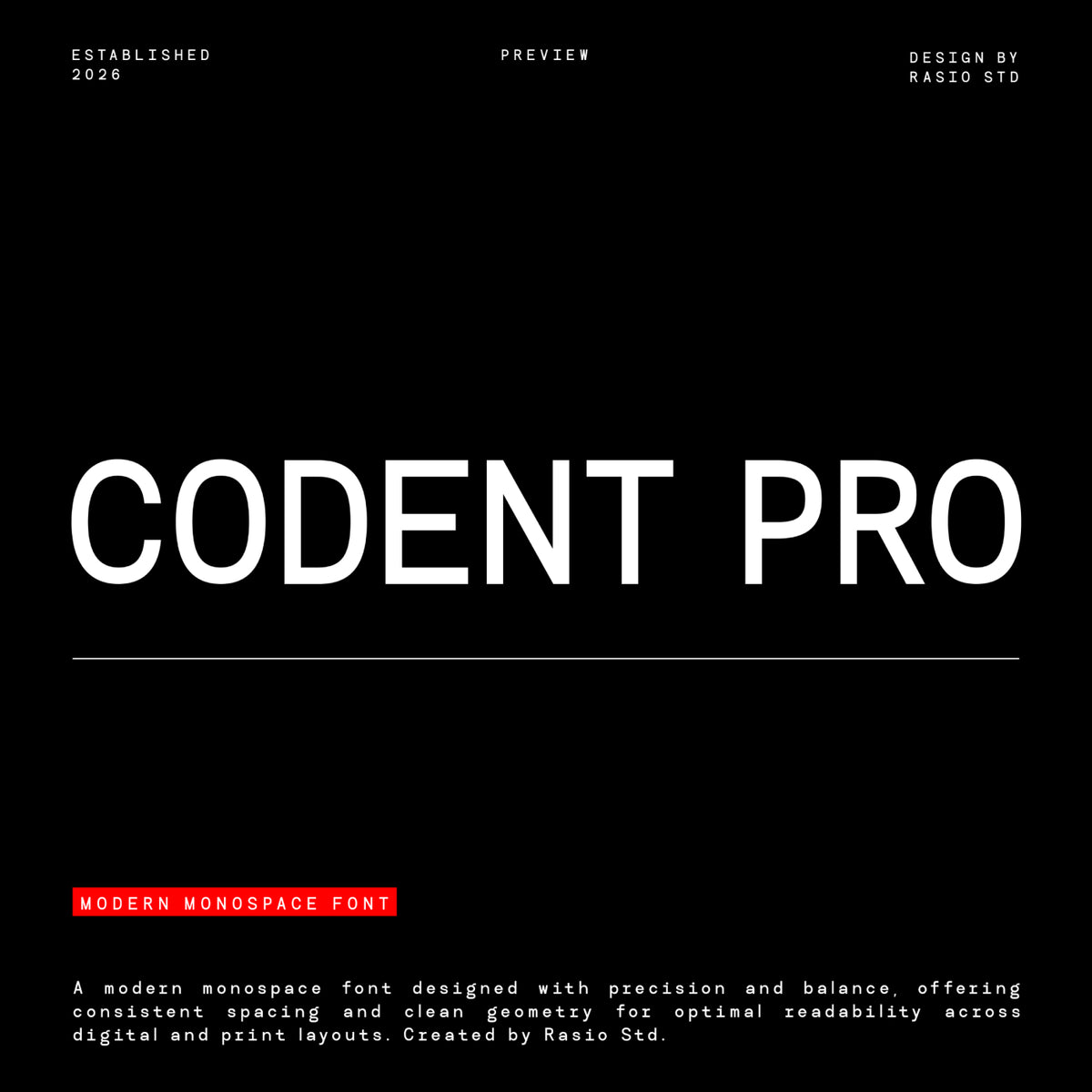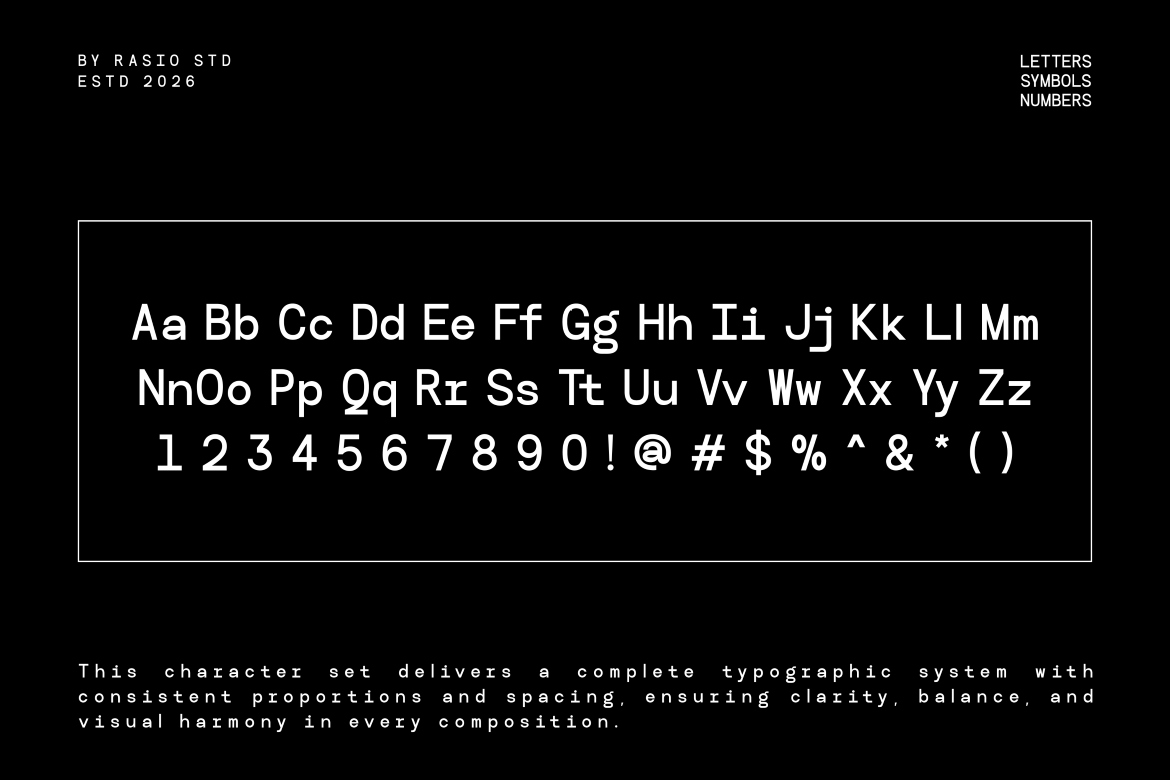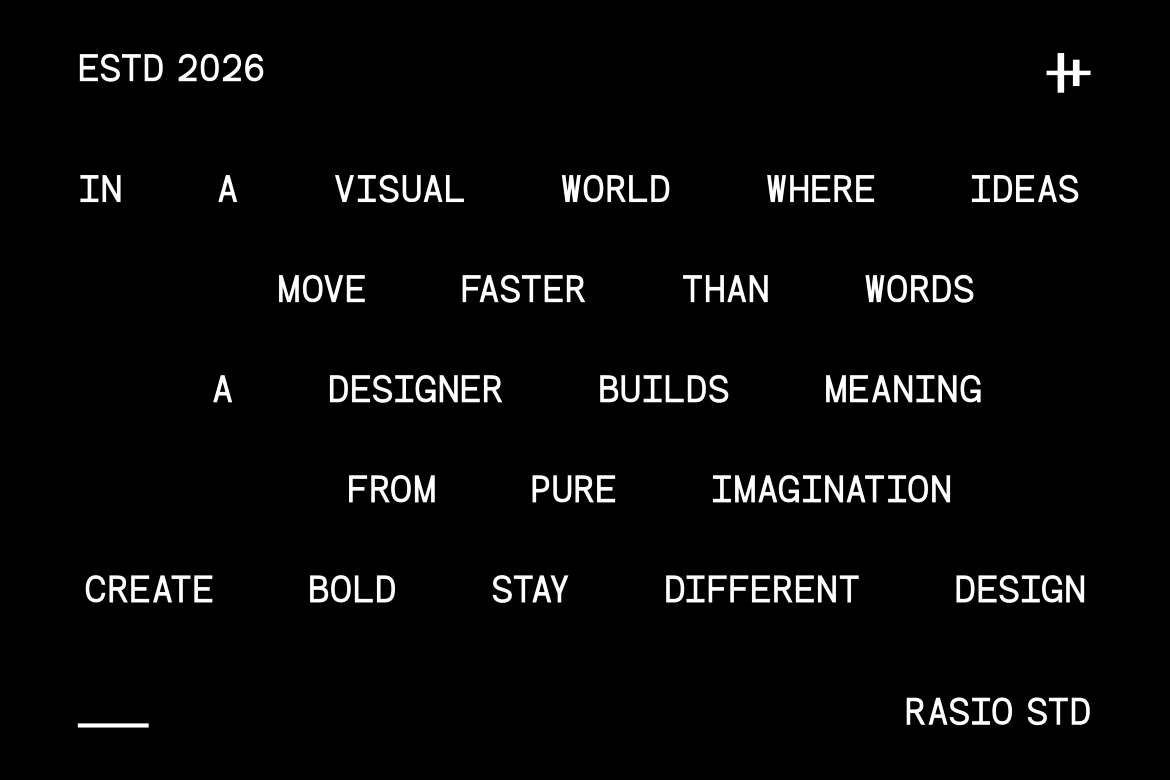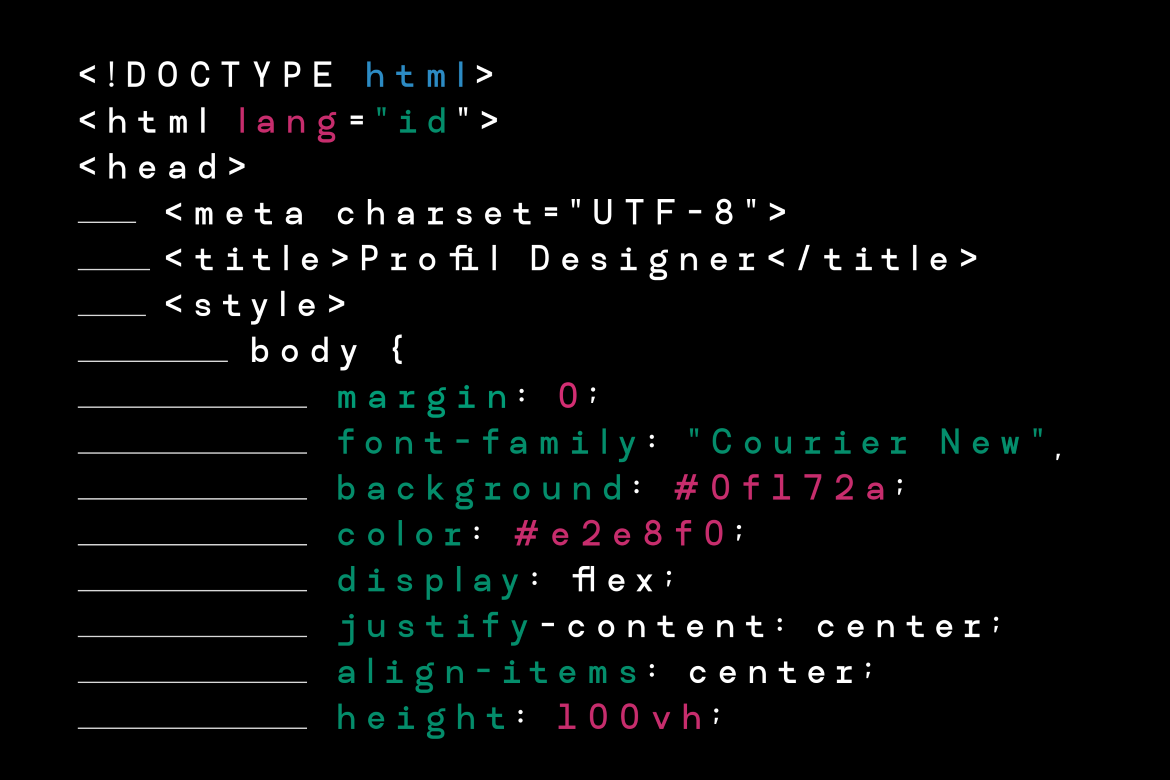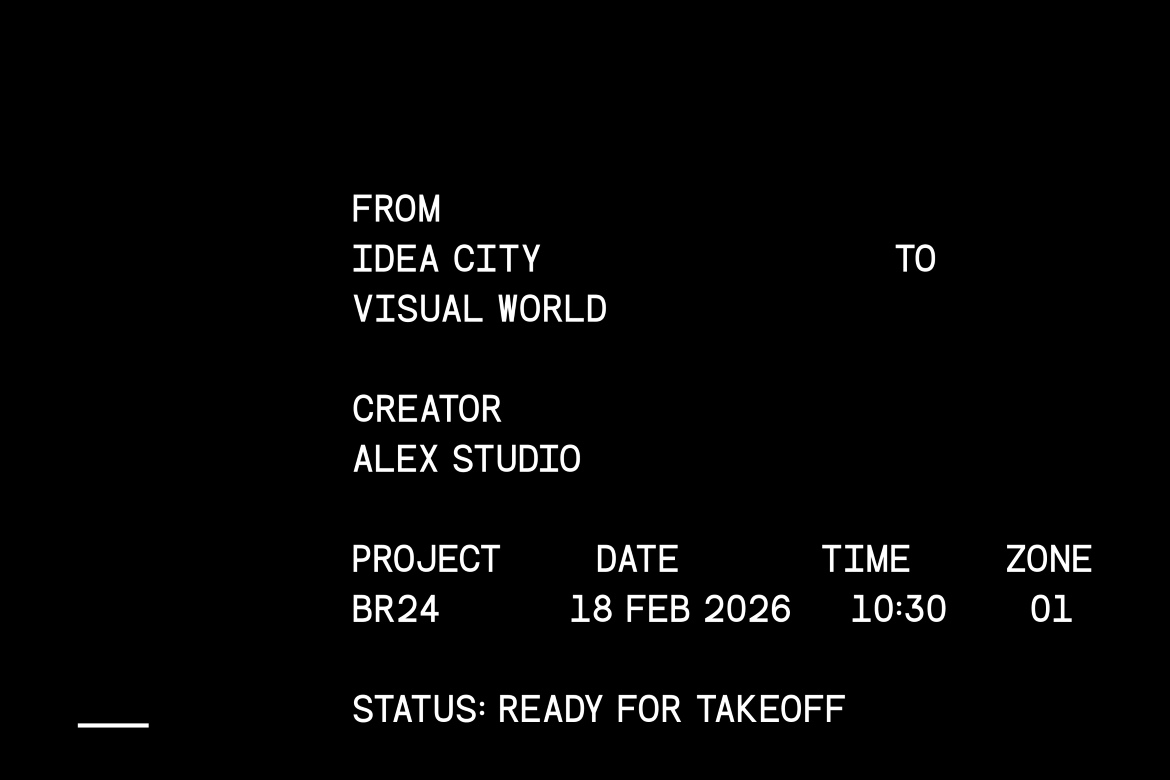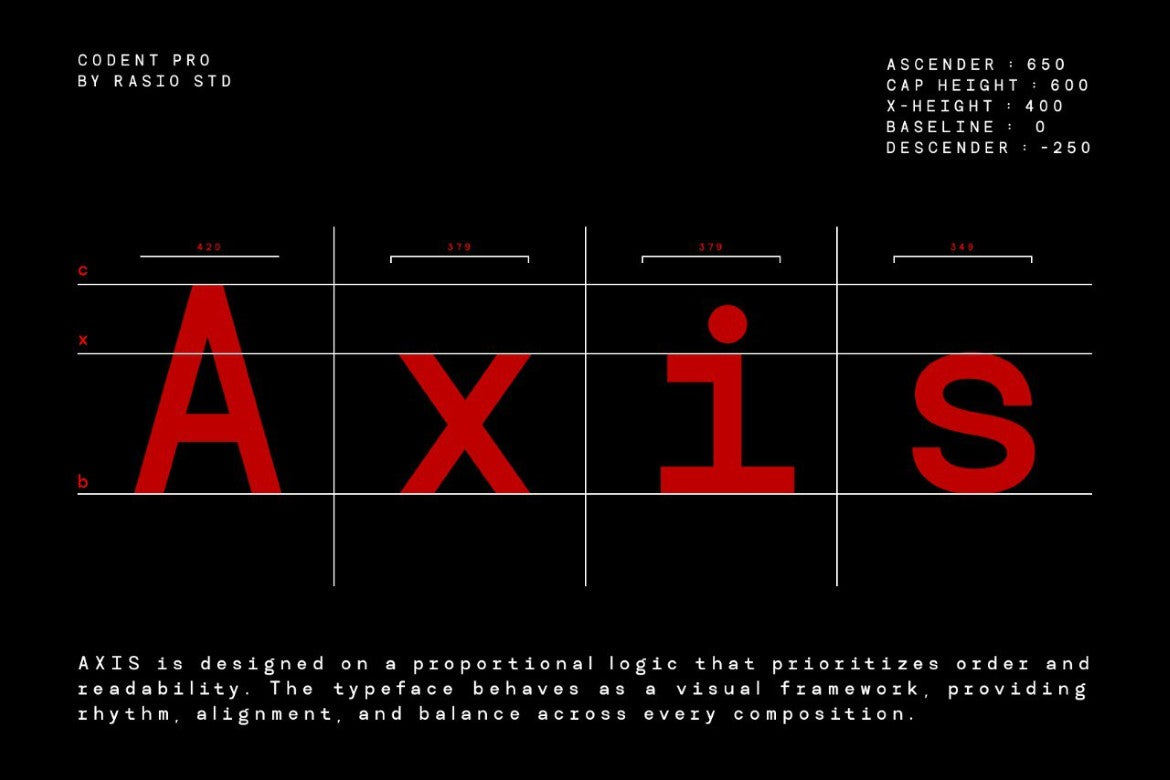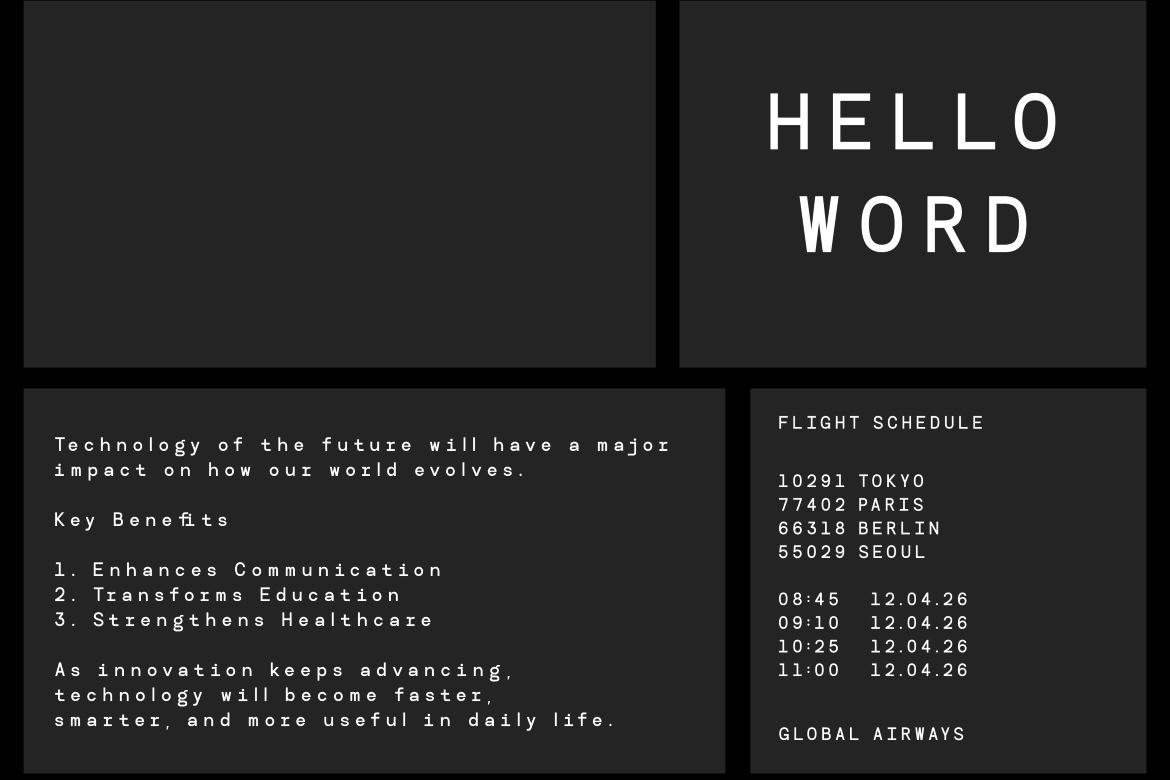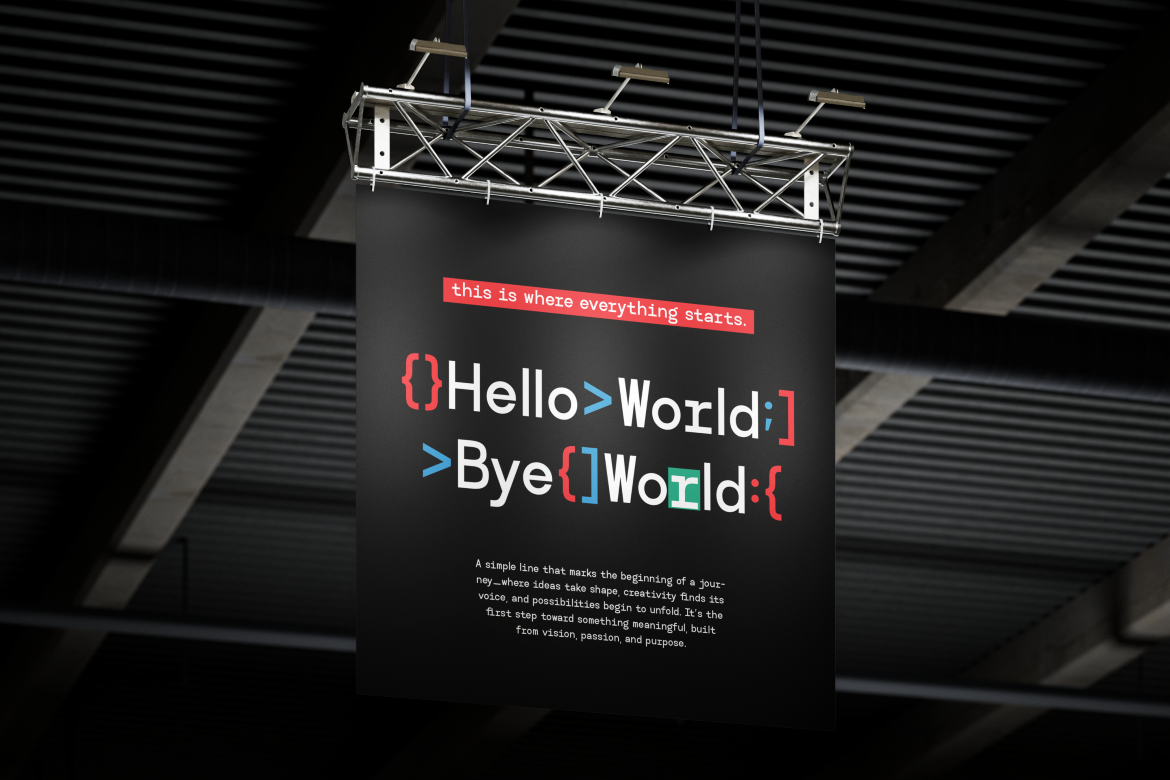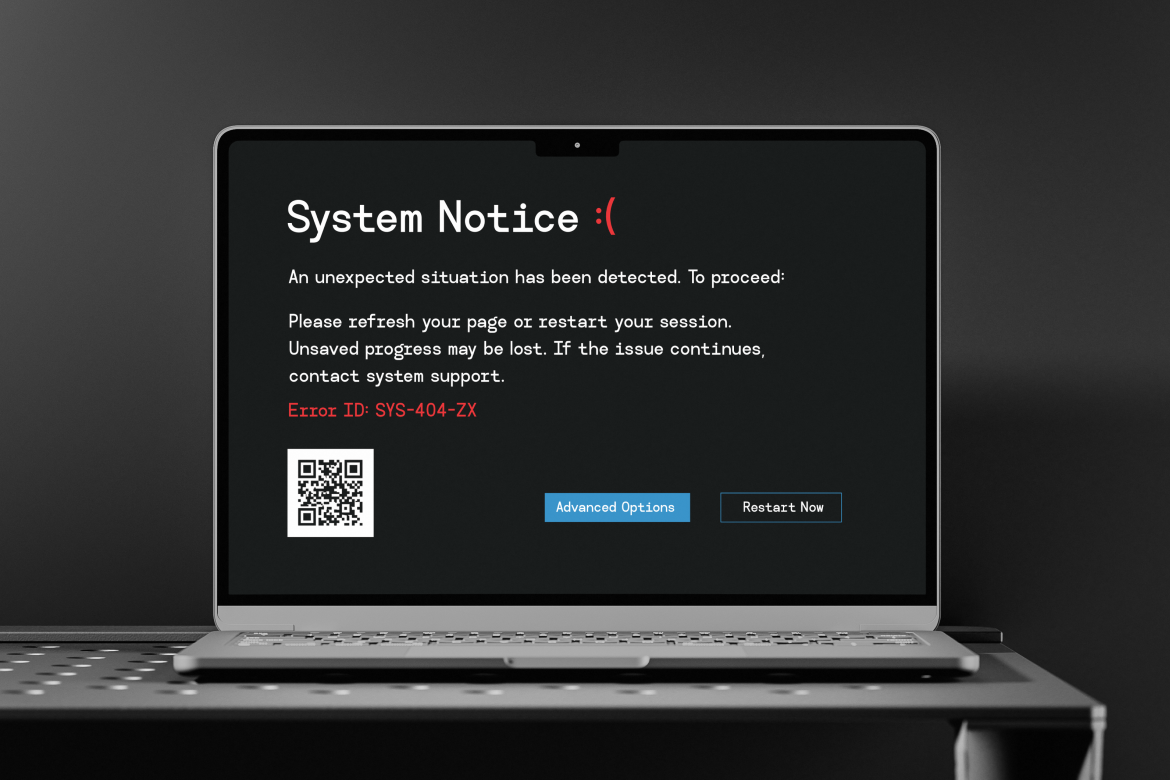
Codent Pro Modern Monospace Font
Codent Pro is a modern monospace typeface engineered for clarity, precision, and structured rhythm. Designed with consistent character width and clean geometric construction, it delivers a highly balanced typographic system ideal for modern digital environments. Built for developers, designers, and system-based layouts, Codent Pro maintains strict proportional harmony across letters, numbers, and symbols.
Relevance and Use Cases is perfect for software companies, tech startups, UI/UX designers, developers, fintech brands, dashboards, and digital product interfaces. It performs exceptionally well in app design, website headers, developer portfolios, tech presentations, terminal branding, and editorial layouts that require precision and structural balance.
Codent Pro is a modern monospace typeface with consistent character width and geometric construction, including uppercase and lowercase letters, numerals, and punctuation. It is available in OTF, TTF, and WOFF formats.